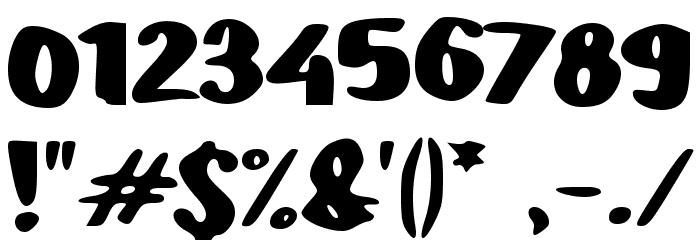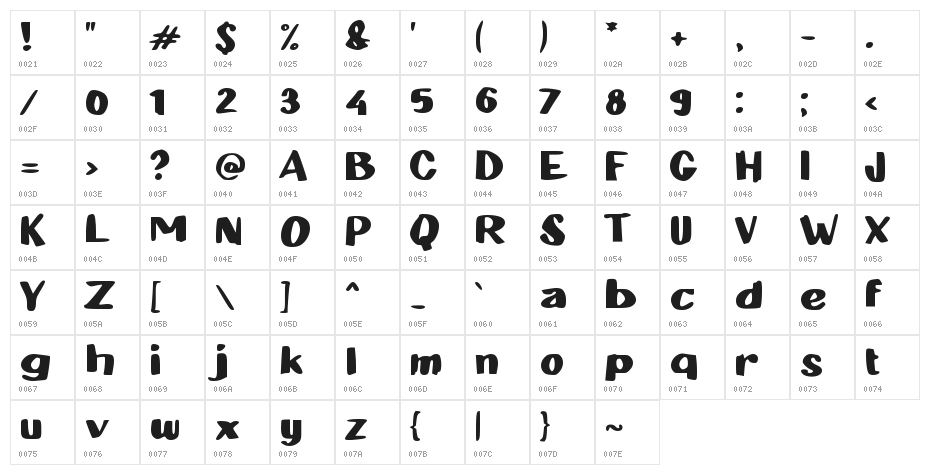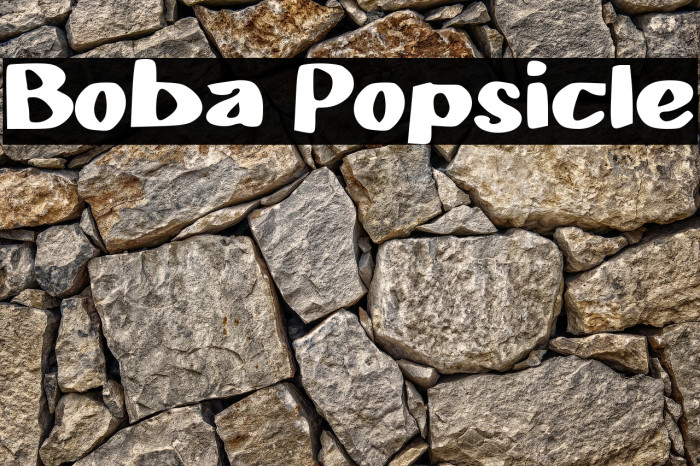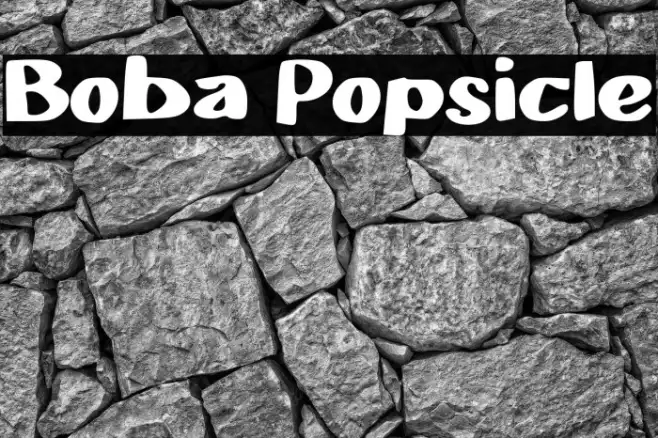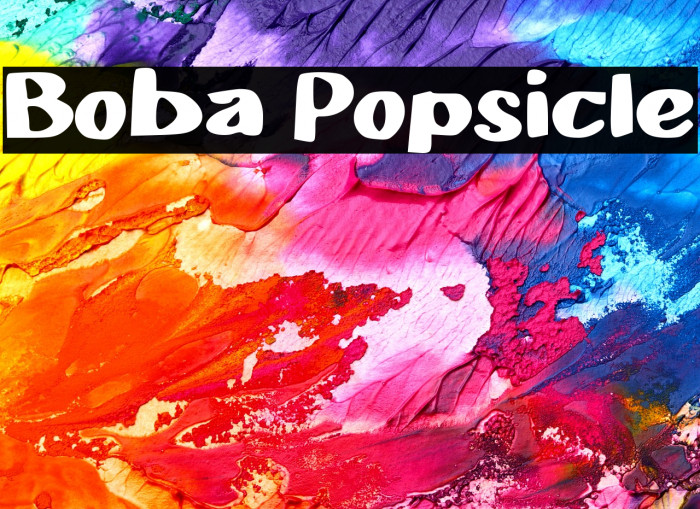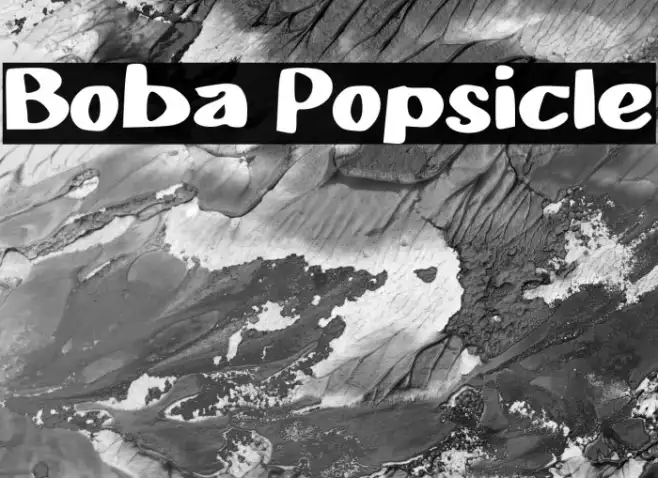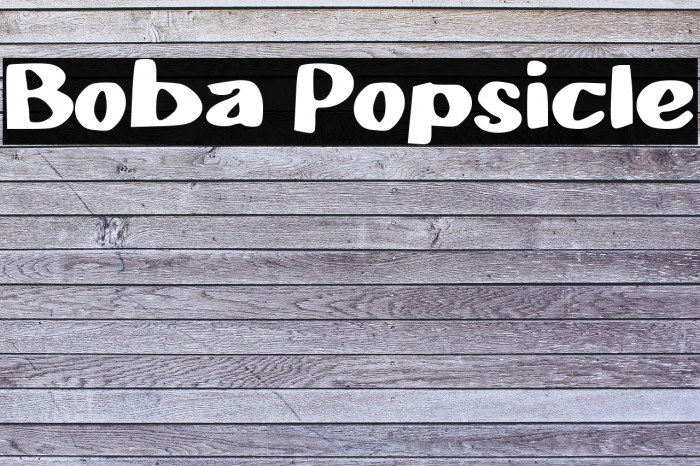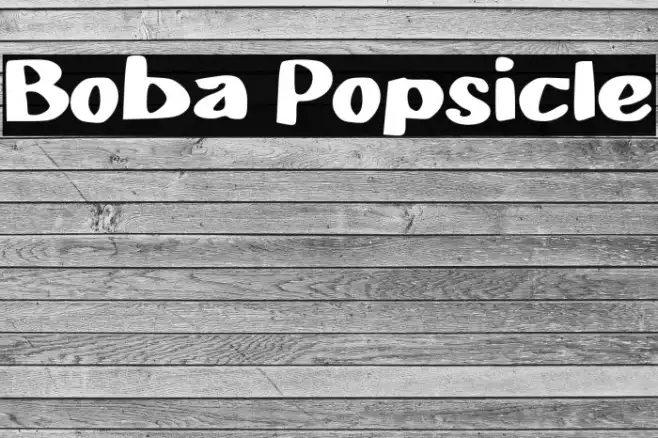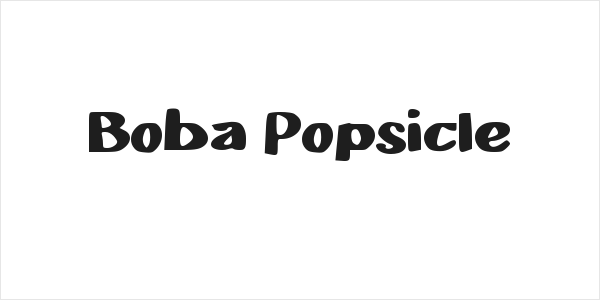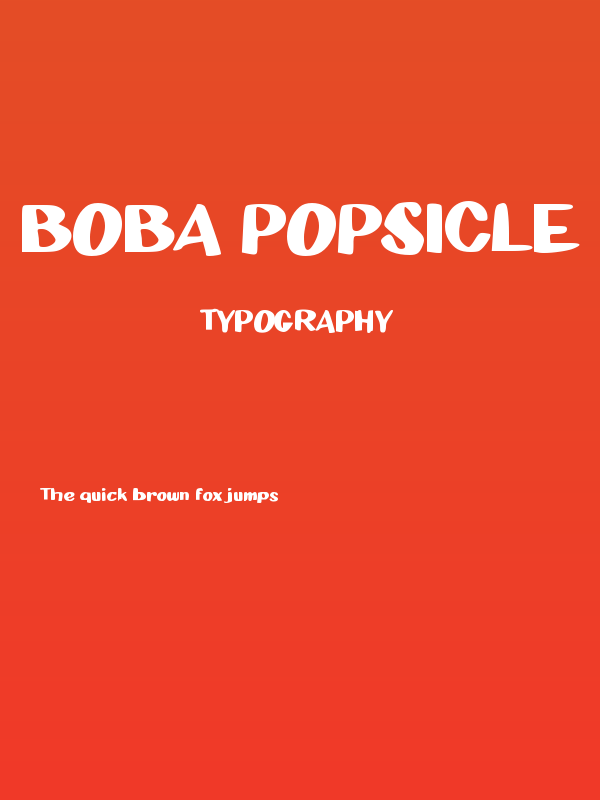
Boba Popsicle Font
Boba Popsicle Description
This font features a playful and bold design, characterized by its thick, rounded strokes and slightly irregular shapes. The letters have a whimsical, hand-drawn quality that adds a sense of fun and creativity. The uppercase and lowercase letters maintain a consistent style, with a slight slant that gives the font a dynamic appearance. The numbers and special characters are equally bold and expressive, making them stand out in any design. This font is perfect for projects that require a touch of personality and charm, such as children's books, playful branding, or eye-catching posters.
| Proposed Projects | Ideal for children's books, playful branding, and eye-catching posters. |